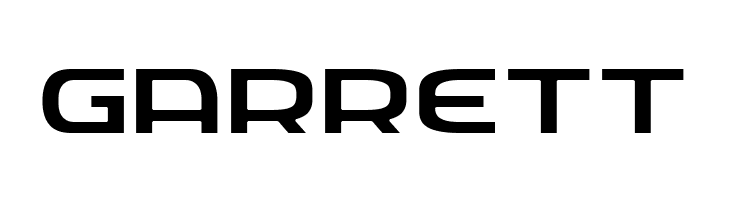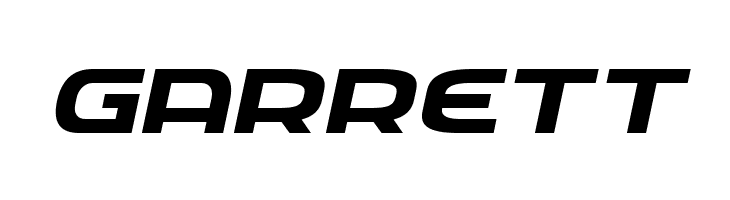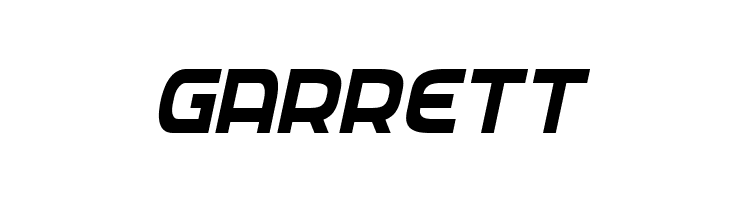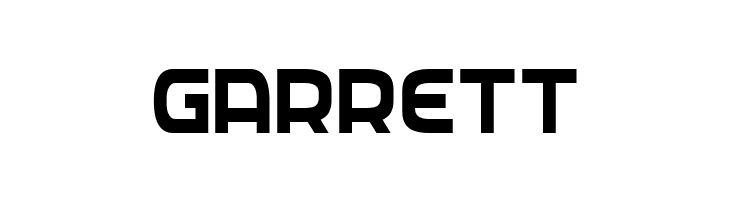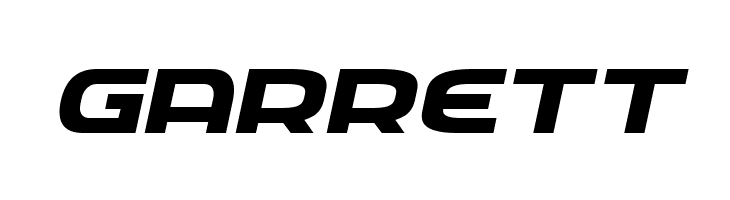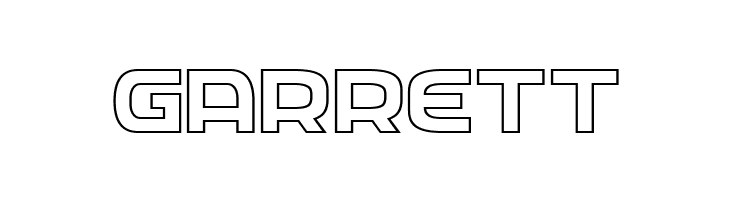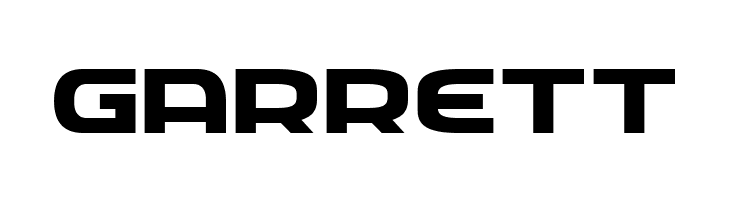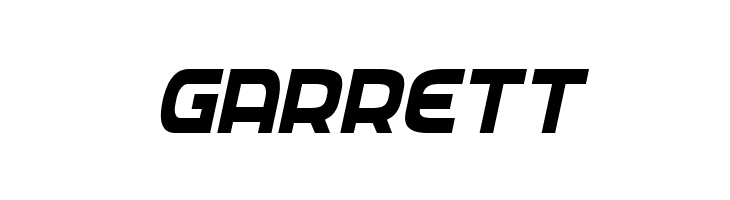
• Federal Service Bold
A bold, modern font with geometric shapes and rounded edges.
• Federal Service Bold Condensed Italic
A bold, condensed, and italic font with a modern and dynamic style.
• Federal Service Bold Expanded
A bold, expanded font with a modern, geometric style.
• Federal Service Bold ExpandedItalic
A bold, expanded, and italicized font with a futuristic and sleek design.
• Federal Service Bold Italic
A bold, italicized, and modern typeface with a dynamic and geometric design.
• Federal Service Condensed
A bold, modern, and condensed geometric font.
• Federal Service Condensed Italic
A modern, condensed, and italicized font with a sleek, geometric design.
• Federal Service Expanded
A bold, modern font with expanded, geometric characters and consistent stroke thickness.
• Federal Service Expanded Italic
A modern, italicized font with expanded characters and medium contrast.
• Federal Service ExtraBold
A bold, modern font with a geometric and futuristic style.
• Federal Service ExtraBold Italic
A bold, italicized font with strong, angular lines and a dynamic slant.
• Federal Service Italic
A sleek, italicized font with a modern and dynamic style.
• Federal Service Laser
A futuristic, geometric font with bold, angular letterforms.
• Federal Service Laser Italic
A bold, italic, and futuristic font with angular, sleek characters.
• Federal Service Light
A modern, geometric font with consistent stroke widths and a clean, streamlined appearance.
• Federal Service Light Condensed
A modern, geometric, and condensed font with consistent stroke thickness.
A sleek, modern, and condensed italic font with smooth curves and a professional aesthetic.
• Federal Service Light Expanded
A modern, geometric font with a light weight and expanded width.
• Federal Service Light ExpandedItalic
A sleek, modern, light, expanded italic font with a dynamic style.
• Federal Service Light Italic
A sleek, modern italic font with smooth curves and sharp edges.
• Federal Service Outline
A bold, geometric outline font with a modern and futuristic style.